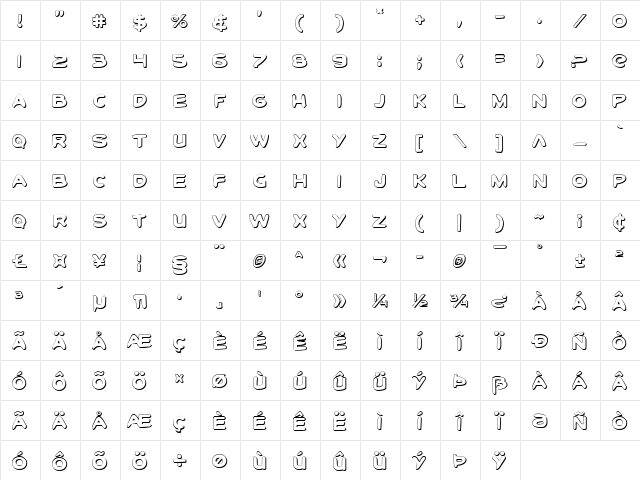
Toon Town Industrial Shadow Shadow
Design Context for Toon Town Industrial Shadow Typeface
Toon Town Industrial Shadow is built around its visual character rather than neutral utility — its distinctive forms are designed to make an impression at display sizes.
Font Pairing: Pair with a clean neutral sans-serif for body copy to let Toon Town Industrial Shadow's character lead without overwhelming the composition.
Pro Tip: Treat Toon Town Industrial Shadow as the centrepiece of your typographic hierarchy. One strong heading set in a decorative face can carry an entire layout.